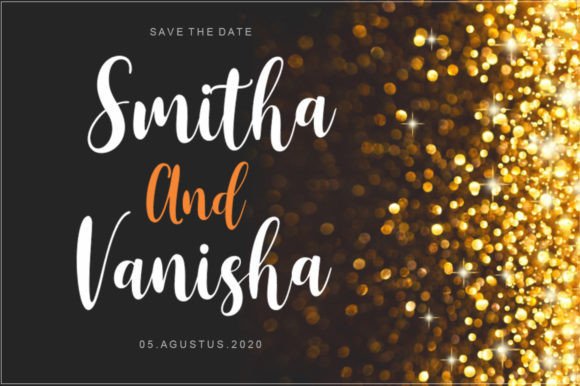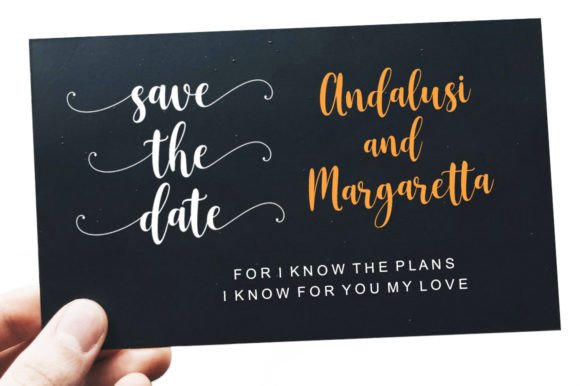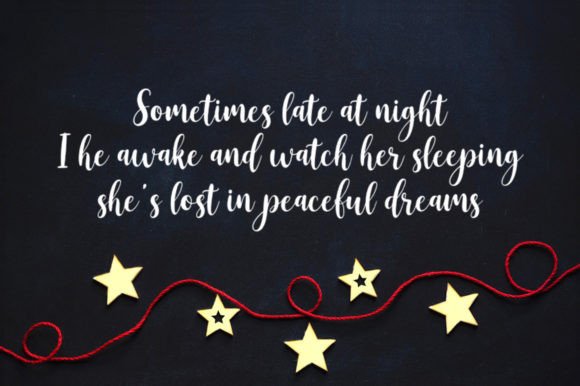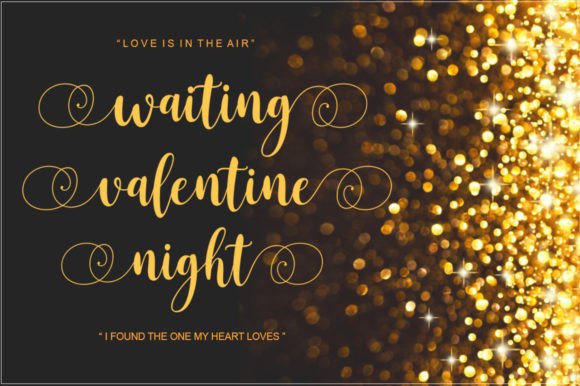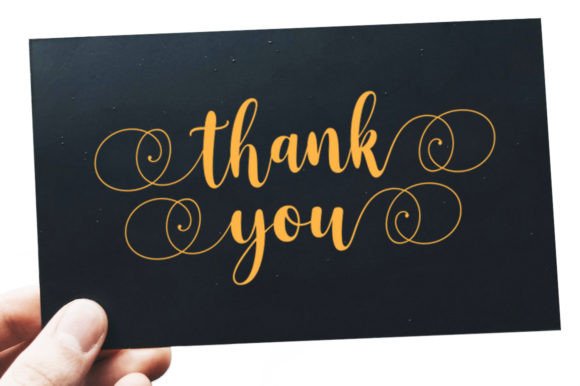
Introduction to Single Ladies Font
Have you ever stared at a blank page, feeling the pressure of a looming deadline and the need to create something truly special? It’s a familiar feeling for designers, and it’s moments like these that make us appreciate the perfect font. For those seeking a touch of elegance and charm, the Single Ladies Font is a game-changer.
This beautiful script font is perfect for adding a handwritten feel to your designs. Whether you’re working on a wedding invitation, a thank you card, or a logo, Single Ladies Font is sure to make your project shine. With its transparent background and high-quality design, it’s a valuable resource for any creative project.
Key Features of Single Ladies Font
- Transparent background, allowing for easy customization and flexibility in design projects.
- High-quality design, ideal for creative projects that require a touch of elegance and sophistication.
- Features a unique and stylish design, perfect for titles, headings, and other prominent text elements in creative projects.
- Designed with a high resolution of 300 DPI, ensuring crisp and clear text even at large sizes.
- Perfect for use in various design contexts, including logos, branding, and advertising materials.
Honest Review: Single Ladies Font
I recently had the chance to work with the Single Ladies Font, and I must say it’s been a game-changer for my creative project. The font’s unique design and high-quality aesthetic make it perfect for any project that needs a touch of sass and sophistication.
One of the things I love about the Single Ladies Font is its versatility. It’s free to download, making it an excellent design resource for anyone looking to add some flair to their work without breaking the bank. The transparent background is also a major plus, allowing me to easily layer the font over different images and colors.
- Unique and stylish design ✨
- High-quality aesthetic ✨
- Transparent background ✨
- Limited character set ⚠️
- No bold or italic variations ⚠️
Overall, I’m thoroughly impressed with the Single Ladies Font. While it may have some limitations, its strengths far outweigh its weaknesses. I highly recommend it to anyone looking for a fun and creative design solution.
The Single Ladies Font is perfect for creative projects, such as wedding invitations, party flyers, or social media graphics. You can also use the font for personal projects, such as a blog or website. The font’s unique style and high-quality design make it a great resource for any design project.